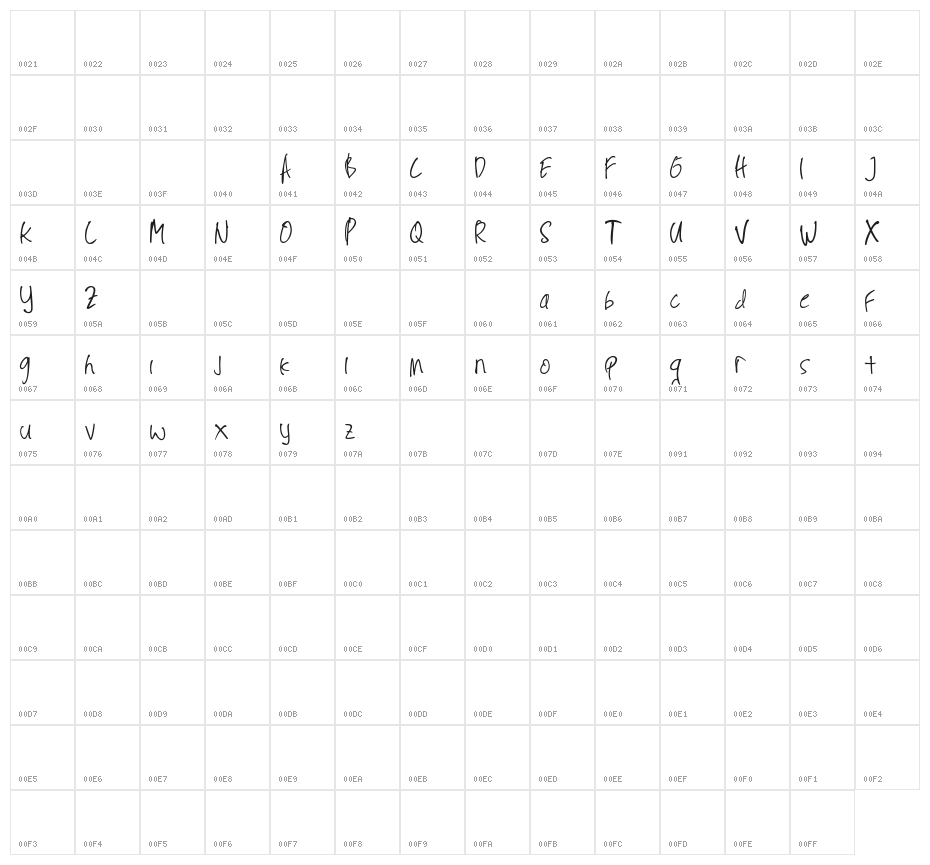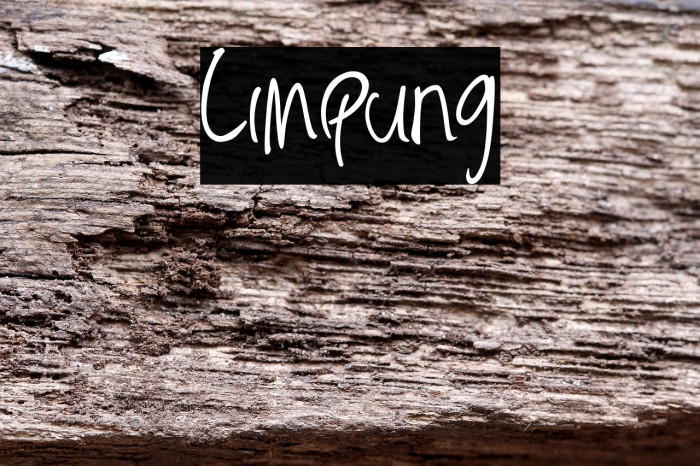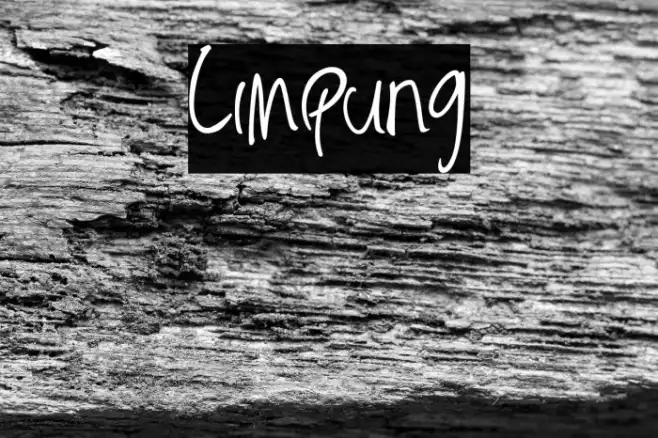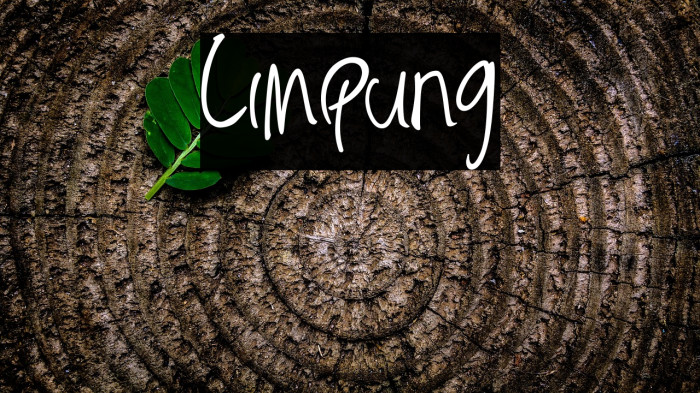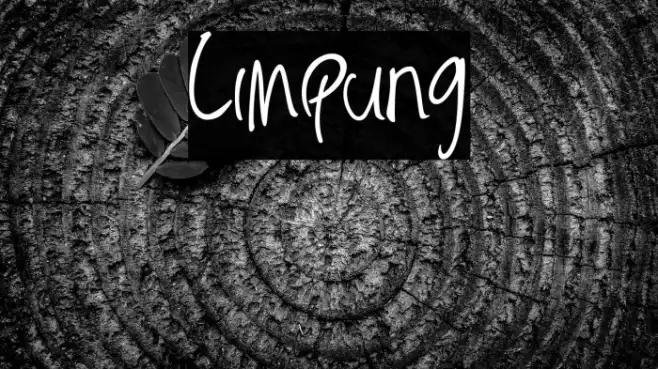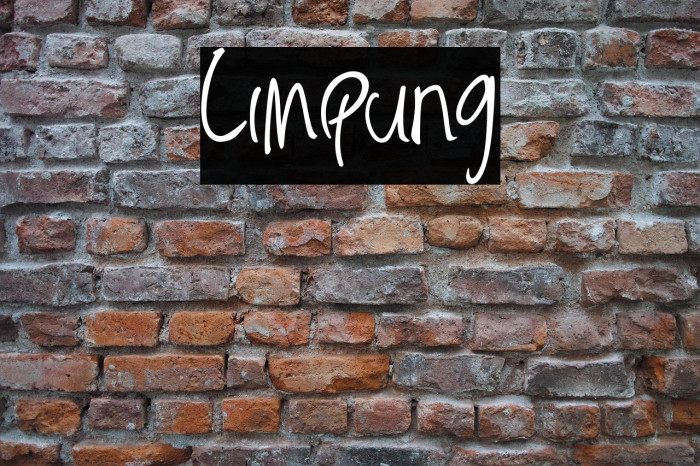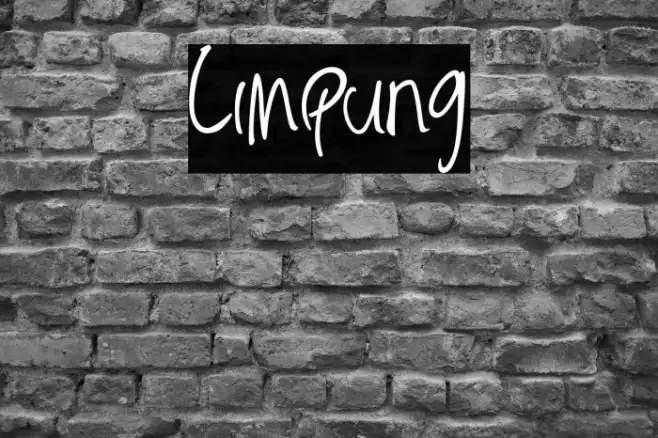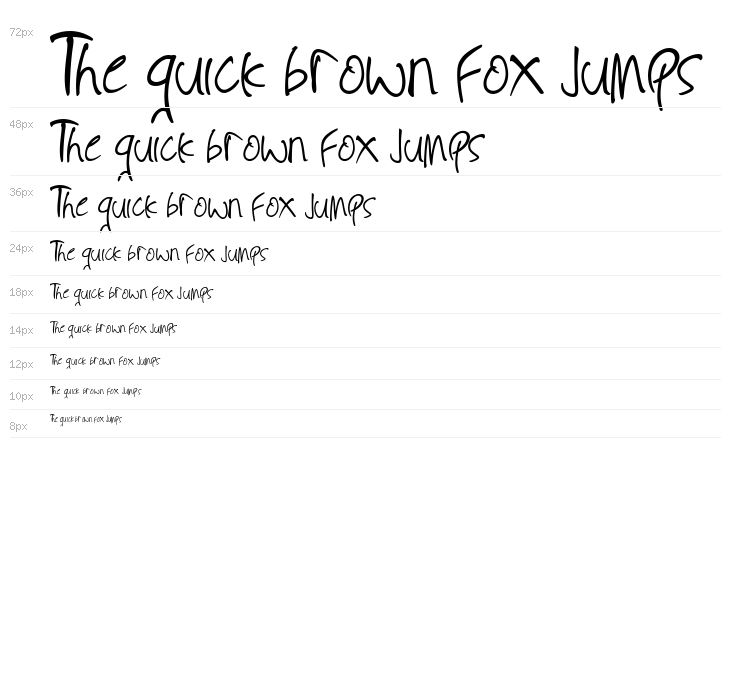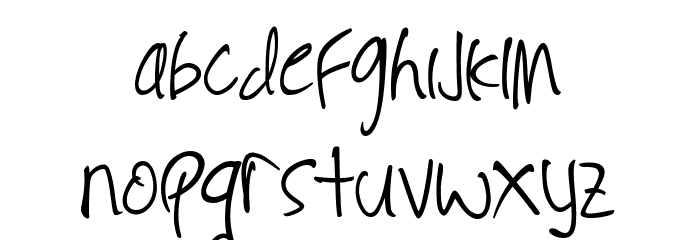
Limpung Font
Limpung Description
This font features a playful and casual handwritten style, characterized by its fluid and dynamic strokes. The letters have a natural, organic flow, with varying stroke widths that add to its informal charm. The uppercase and lowercase letters maintain a consistent style, with slightly exaggerated curves and loops that enhance its whimsical appearance. The numbers and special characters follow the same design principles, ensuring a cohesive look across all glyphs. This font is perfect for projects that require a personal touch or a creative flair.
Overall StyleCasual, Playful
Use CaseHeadlines, Logos, Invitations
Proposed ProjectsIdeal for greeting cards, invitations, personal branding, and creative projects that require a personal touch.